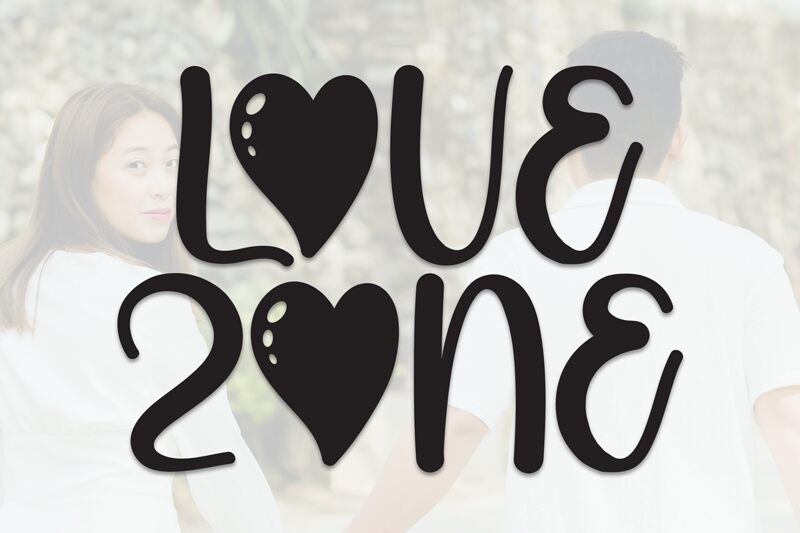
Love Zone font, created by talented designer Andi Moz, is a free playful type with a modern feel. It’s a holiday-themed decorative font with a romantic character, capable of capturing every eye. The typeface has a touch of whimsy, its almost handwritten nature making it appear really expressive. Love Zone has a friendly nature because of its cheerful character, making it suitable also for contemporary use.
The font is perfect for use in greeting cards and wedding invitations. It also performs flawlessly in other print use cases such as in branding, packaging, book, and magazine covers, as well as posters. Use it also in digital platforms such as logos, websites, blogs, social media posts, and apps.
This is a sweet and friendly handwritten display font. Cute and fun, this font is ideal for writing wedding invitations, cards, or any other design that needs a playful touch!